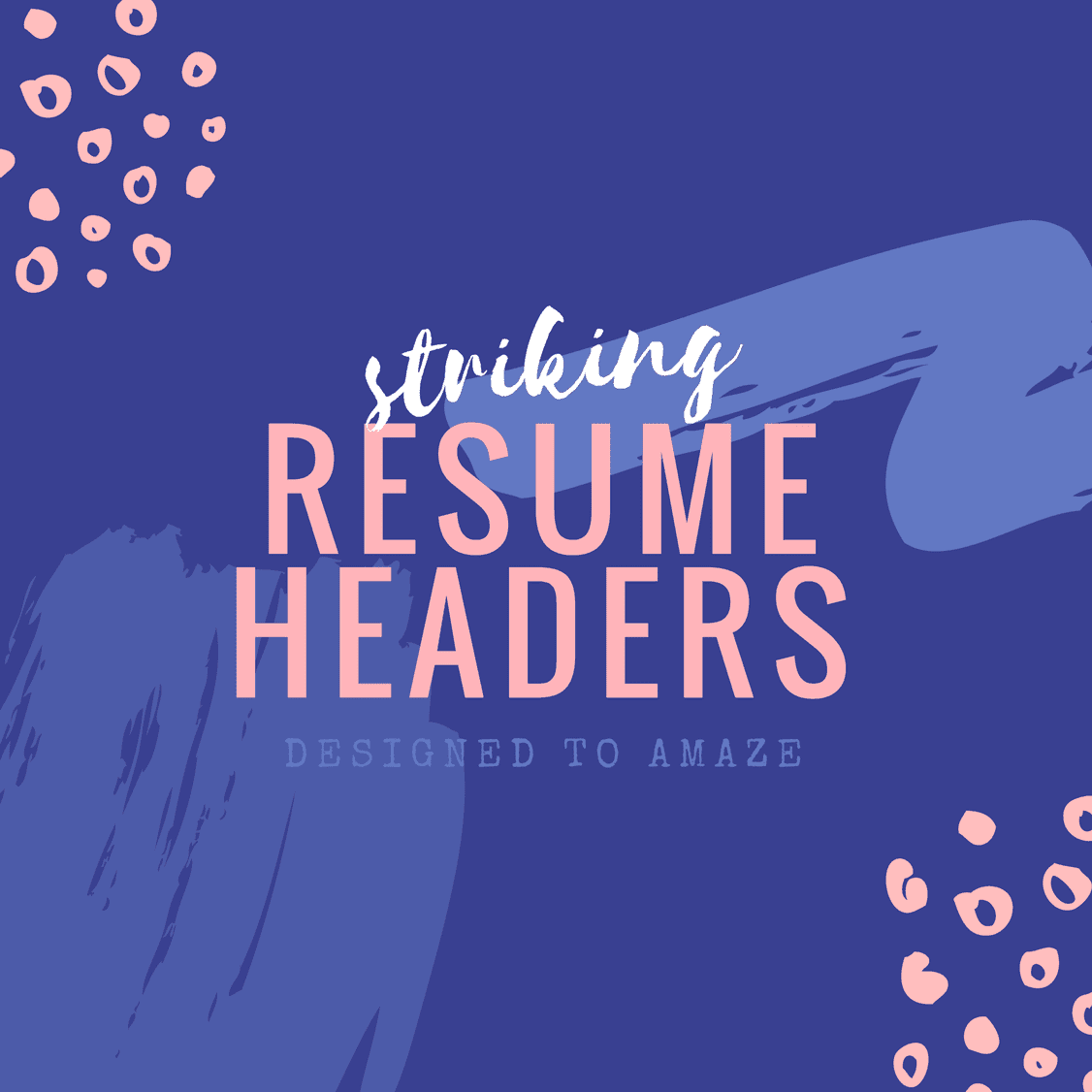
Best Font Size For Resume Header . Best resume font sizes are: Times new roman is probably the most commonly chosen fonts for resumes—the very reason you should avoid it, and why it appears on our “worst” list. Experiment with font size and weight to create hierarchy and visual contrast within your resume. Larger fonts are good for emphasizing your name and section headings. The best font size to use for your resume. Opt for the standard font size for resumes—12 points, as a classic and easily readable font. The optimal font size for a resume is between 10 and 12 points. The size you choose may be largely determined by how the font size impacts your resume layout. Body text and your contact info: Ultimately, the most important component of your resume is the content.
Best resume font sizes are: Body text and your contact info: Times new roman is probably the most commonly chosen fonts for resumes—the very reason you should avoid it, and why it appears on our “worst” list. The optimal font size for a resume is between 10 and 12 points. The size you choose may be largely determined by how the font size impacts your resume layout. Ultimately, the most important component of your resume is the content. Opt for the standard font size for resumes—12 points, as a classic and easily readable font. Experiment with font size and weight to create hierarchy and visual contrast within your resume. The best font size to use for your resume. Larger fonts are good for emphasizing your name and section headings.
These Are The Most Effective Resume Fonts In 2019
Best Font Size For Resume Header Times new roman is probably the most commonly chosen fonts for resumes—the very reason you should avoid it, and why it appears on our “worst” list. Larger fonts are good for emphasizing your name and section headings. The optimal font size for a resume is between 10 and 12 points. The best font size to use for your resume. Opt for the standard font size for resumes—12 points, as a classic and easily readable font. Best resume font sizes are: Experiment with font size and weight to create hierarchy and visual contrast within your resume. Ultimately, the most important component of your resume is the content. Body text and your contact info: The size you choose may be largely determined by how the font size impacts your resume layout. Times new roman is probably the most commonly chosen fonts for resumes—the very reason you should avoid it, and why it appears on our “worst” list.
What To Include in Your Resume Header Best Font Size For Resume Header Opt for the standard font size for resumes—12 points, as a classic and easily readable font. Best resume font sizes are: The optimal font size for a resume is between 10 and 12 points. Experiment with font size and weight to create hierarchy and visual contrast within your resume. Ultimately, the most important component of your resume is the content.. Best Font Size For Resume Header.
Best Fonts for a Resume in 2024 Resume Font Tips Best Font Size For Resume Header The best font size to use for your resume. Body text and your contact info: Times new roman is probably the most commonly chosen fonts for resumes—the very reason you should avoid it, and why it appears on our “worst” list. Experiment with font size and weight to create hierarchy and visual contrast within your resume. Ultimately, the most important. Best Font Size For Resume Header.
The Best Font Size and Style for Resumes Best Font Size For Resume Header Best resume font sizes are: Opt for the standard font size for resumes—12 points, as a classic and easily readable font. The optimal font size for a resume is between 10 and 12 points. The best font size to use for your resume. Ultimately, the most important component of your resume is the content. Experiment with font size and weight. Best Font Size For Resume Header.
20+ Best Resume Fonts in 2024 [Free Download] Venngage Best Font Size For Resume Header Best resume font sizes are: The optimal font size for a resume is between 10 and 12 points. Opt for the standard font size for resumes—12 points, as a classic and easily readable font. Experiment with font size and weight to create hierarchy and visual contrast within your resume. Ultimately, the most important component of your resume is the content.. Best Font Size For Resume Header.
20+ Best Resume Fonts in 2024 [Free Download] Venngage Best Font Size For Resume Header Larger fonts are good for emphasizing your name and section headings. The size you choose may be largely determined by how the font size impacts your resume layout. The optimal font size for a resume is between 10 and 12 points. Opt for the standard font size for resumes—12 points, as a classic and easily readable font. The best font. Best Font Size For Resume Header.
5 Best Fonts for Resumes resumes Resume Fonts, Resume Advice, Resume Best Font Size For Resume Header The optimal font size for a resume is between 10 and 12 points. The size you choose may be largely determined by how the font size impacts your resume layout. Ultimately, the most important component of your resume is the content. Opt for the standard font size for resumes—12 points, as a classic and easily readable font. Best resume font. Best Font Size For Resume Header.
Resume Readability 17 Best Fonts for Resumes Best Font Size For Resume Header Best resume font sizes are: The size you choose may be largely determined by how the font size impacts your resume layout. The optimal font size for a resume is between 10 and 12 points. Body text and your contact info: Larger fonts are good for emphasizing your name and section headings. Opt for the standard font size for resumes—12. Best Font Size For Resume Header.
What's the Best Resume Font, Size, and Format [2023] Best Font Size For Resume Header Ultimately, the most important component of your resume is the content. Experiment with font size and weight to create hierarchy and visual contrast within your resume. Larger fonts are good for emphasizing your name and section headings. The optimal font size for a resume is between 10 and 12 points. The best font size to use for your resume. Times. Best Font Size For Resume Header.
Best Fonts for Resumes Fonts & Sizes & Templates to Stand Out from Best Font Size For Resume Header The size you choose may be largely determined by how the font size impacts your resume layout. Best resume font sizes are: Times new roman is probably the most commonly chosen fonts for resumes—the very reason you should avoid it, and why it appears on our “worst” list. Experiment with font size and weight to create hierarchy and visual contrast. Best Font Size For Resume Header.